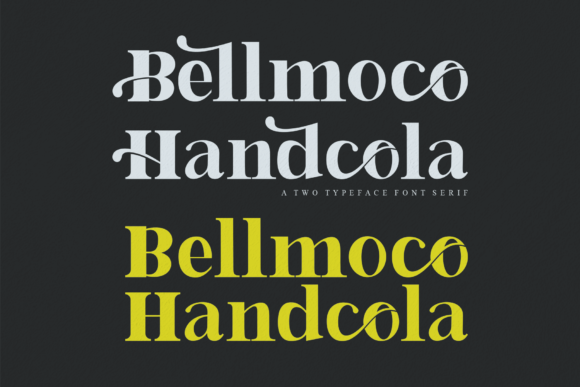
Introducing Bellmoco Handcola: The Serif Font Poised to Elevate Your Designs
In a world saturated with digital creations, it's the unique details that truly captivate and leave a lasting impression. Bellmoco Handcola, a masterful serif font crafted by Creativewhitee, is your gateway to creating designs that transcend the ordinary.
Step into a realm of elegance and boldness where Bellmoco Handcola's carefully crafted curves and sharp edges dance together in perfect harmony. This font is not just a collection of letters; it's an artistic expression that breathes life into your words, making them leap off the screen and into the hearts of your audience.
Whether you're a seasoned designer or just starting your creative journey, Bellmoco Handcola is your perfect companion. Its versatility knows no bounds, effortlessly adapting to a symphony of projects, from branding and packaging to web design and social media posts.
With Bellmoco Handcola, your designs will radiate an aura of sophistication and timeless beauty. Picture your logo, etched in this elegant serif, exuding an air of professionalism and trustworthiness. Or envision your website, adorned with headlines that command attention and paragraphs that flow with effortless grace.
This font is more than just a tool; it's an extension of your creativity, an amplifier of your unique style. Let Bellmoco Handcola be your muse, inspiring you to push the boundaries of design and create masterpieces that leave an indelible mark on the world.